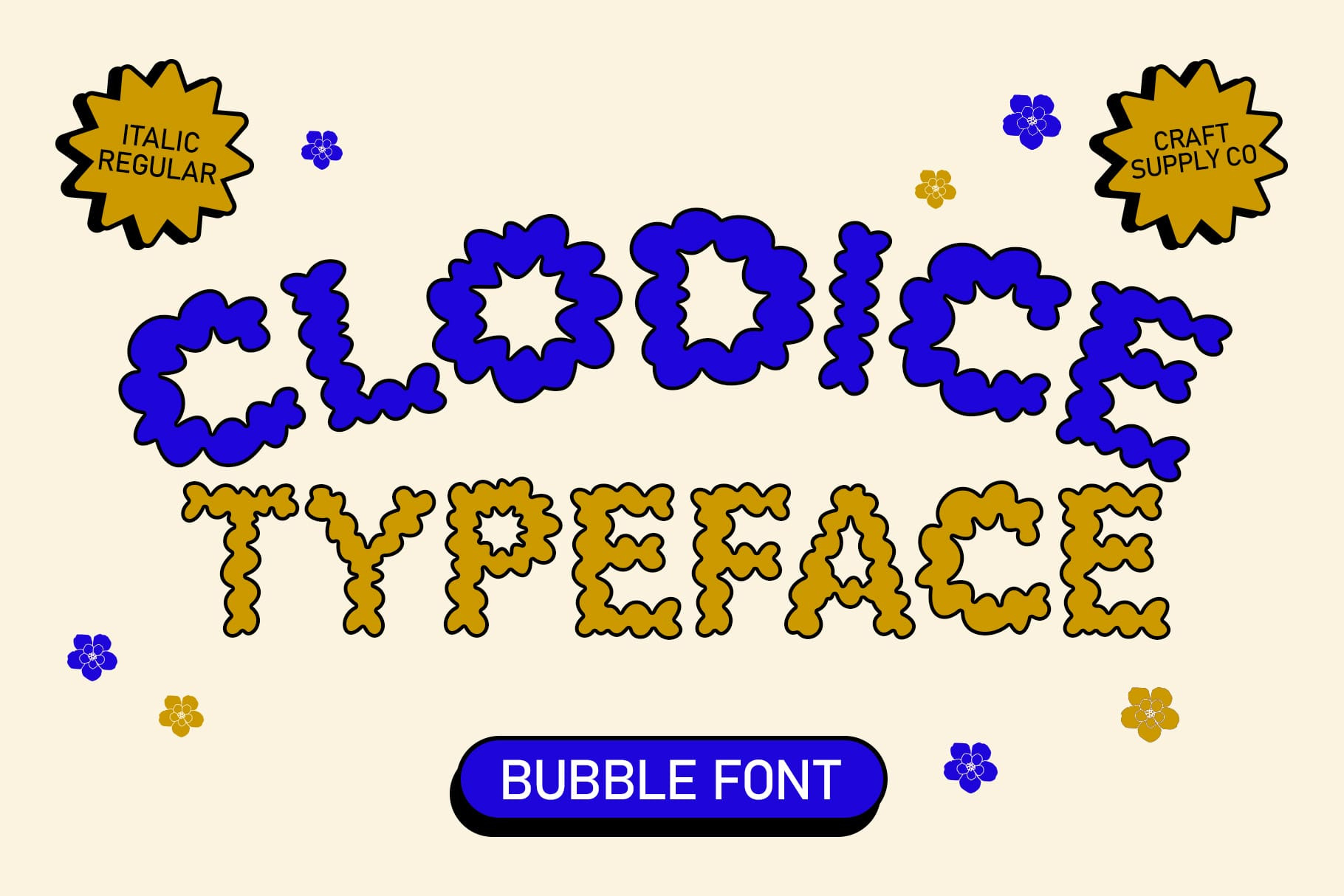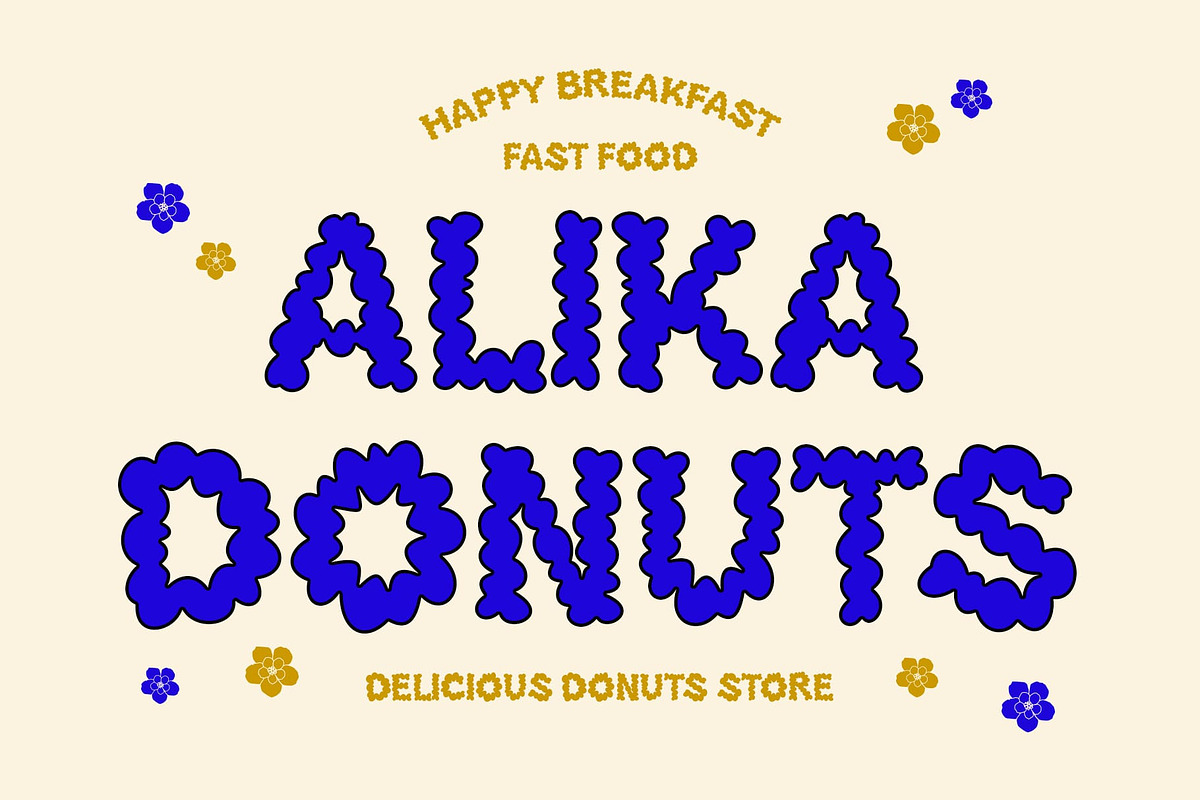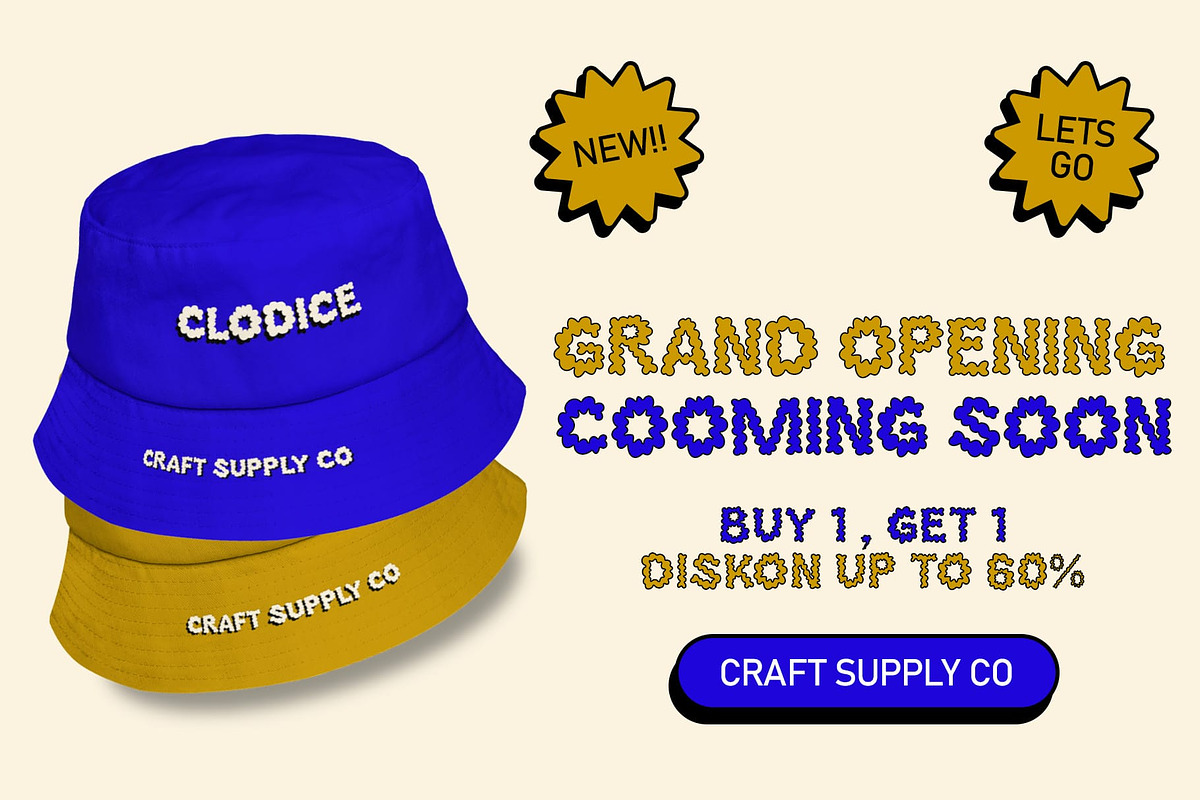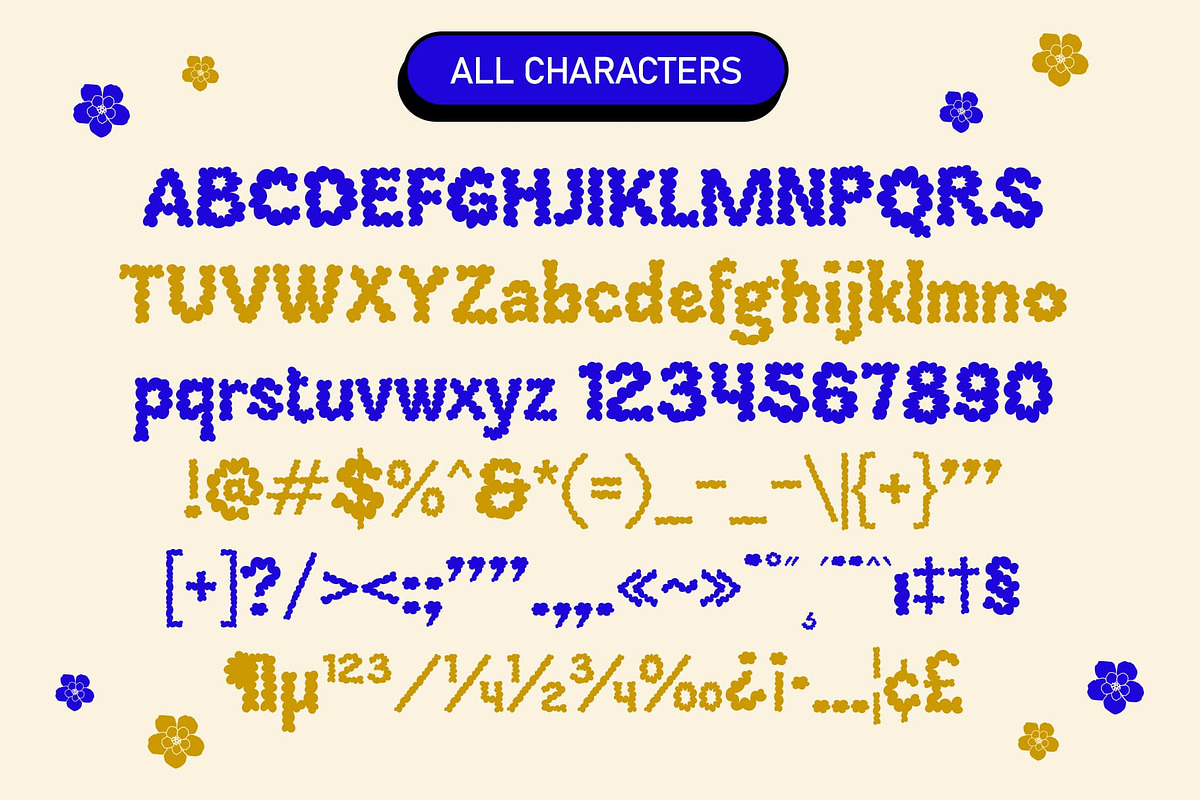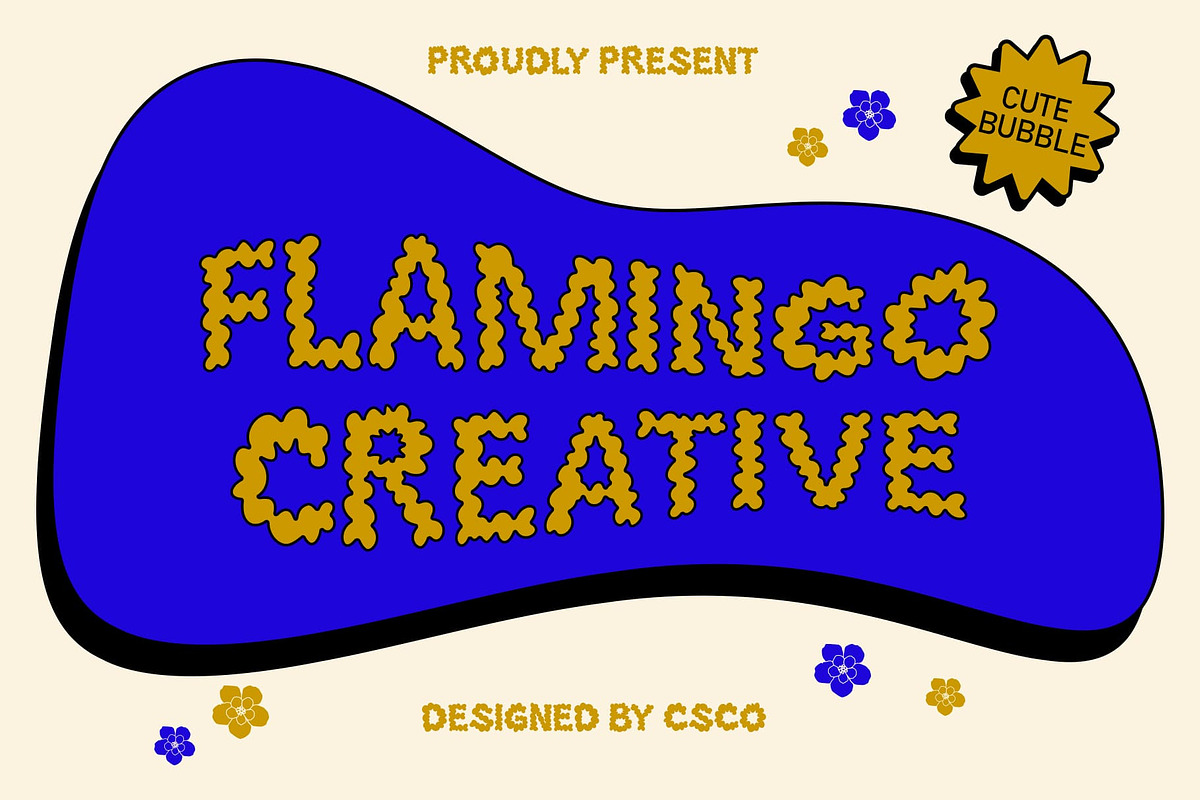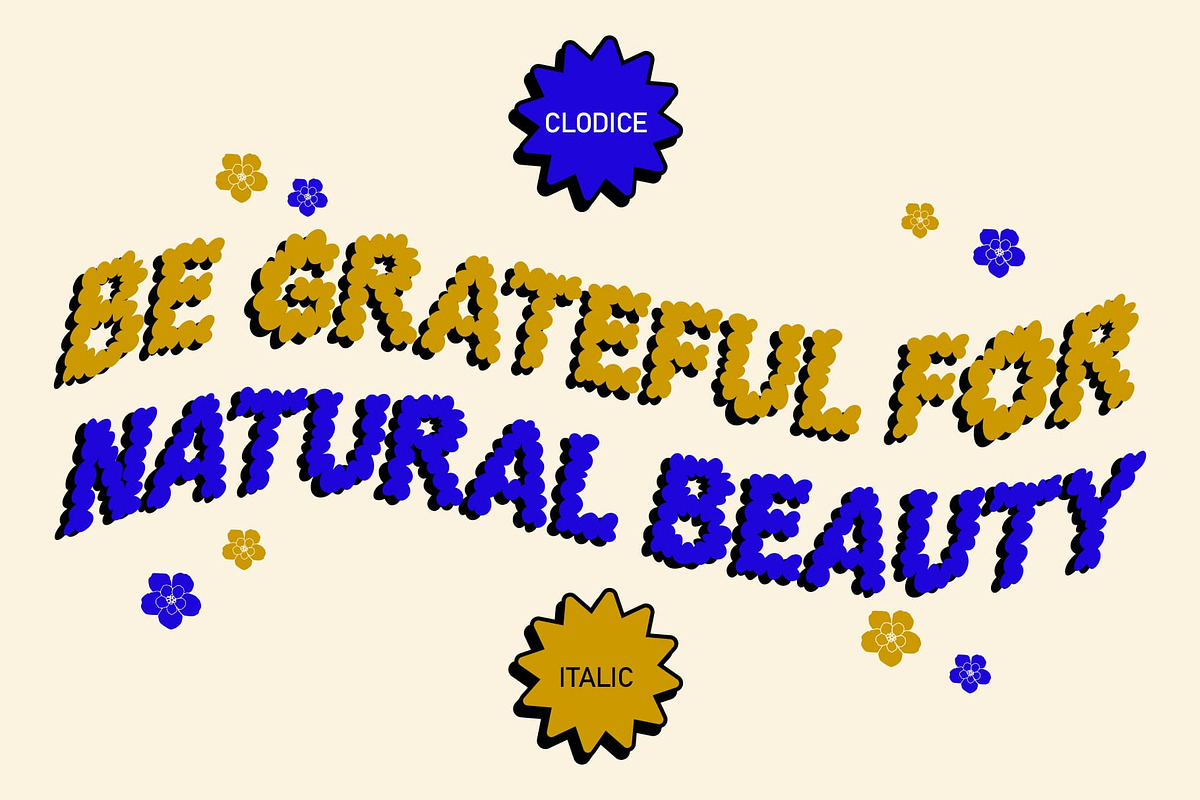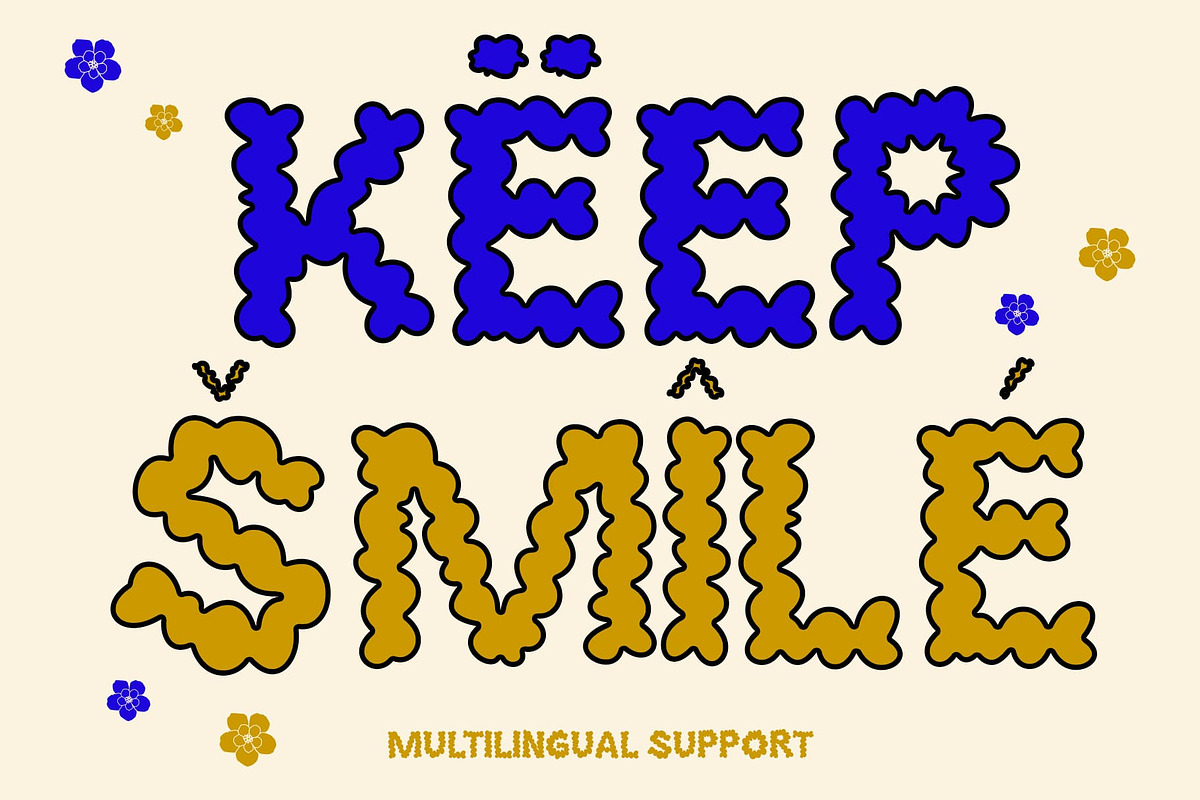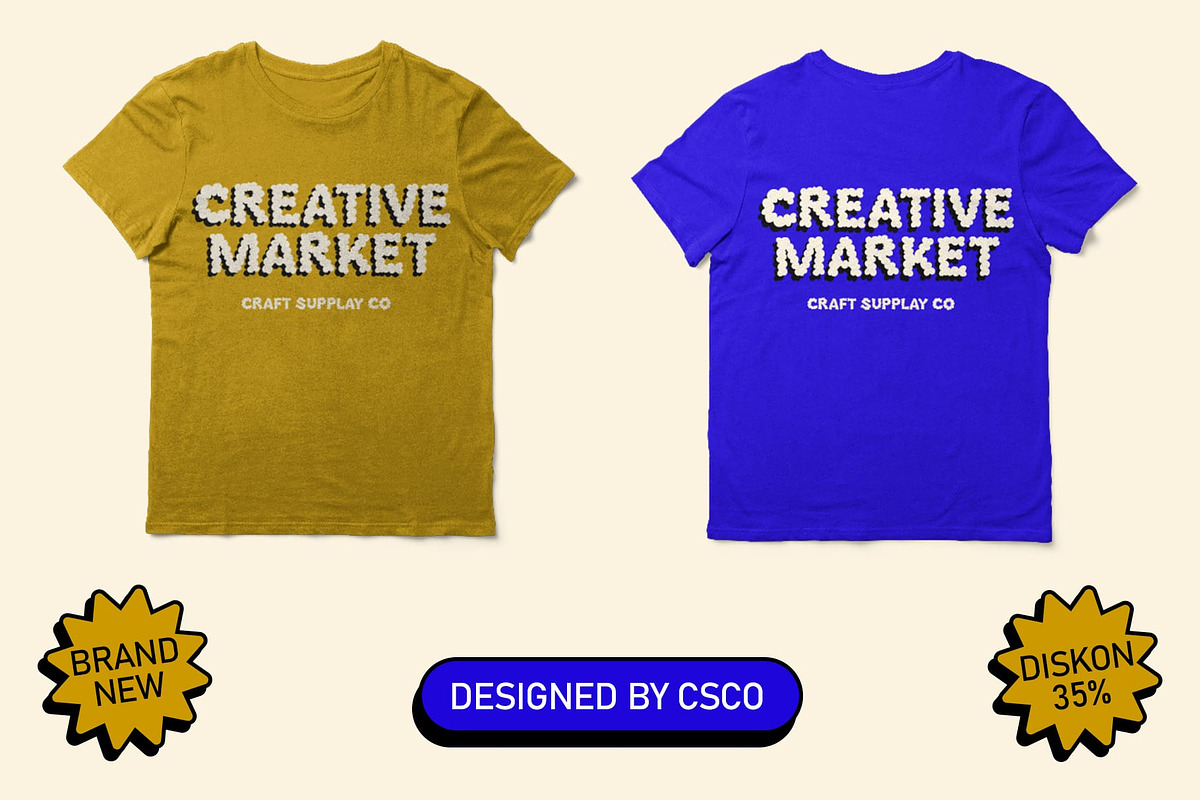
Clodice – Bubble Typeface
Clodice Font: The Funky and Cute Bubble Typeface
Fun and Playful Design Clodice exudes a vibrant and playful display aura with its funky bubble style, perfect for adding a touch of joy to any design project.
Cheerful and Lively Vibes The bubbly characters of Clodice font bring cheerful and lively vibes to your text, making it ideal for projects aimed at capturing attention and spreading positivity.
Versatile Application Whether you’re creating greeting cards, posters, or social media graphics, This font offers versatility in its application, ensuring your message is conveyed with whimsy and charm.
Eye-Catching and Memorable With its unique and eye-catching design, This font ensures your text stands out and remains memorable, leaving a lasting impression on your audience.
Funky Meets Cute This font is the perfect choice when you need a typeface that combines funkiness with cuteness. Its bubbly charm and playful demeanor make it a delightful addition to any design project, promising to bring smiles wherever it’s used.
- Clodice Regular
- Clodice Italic